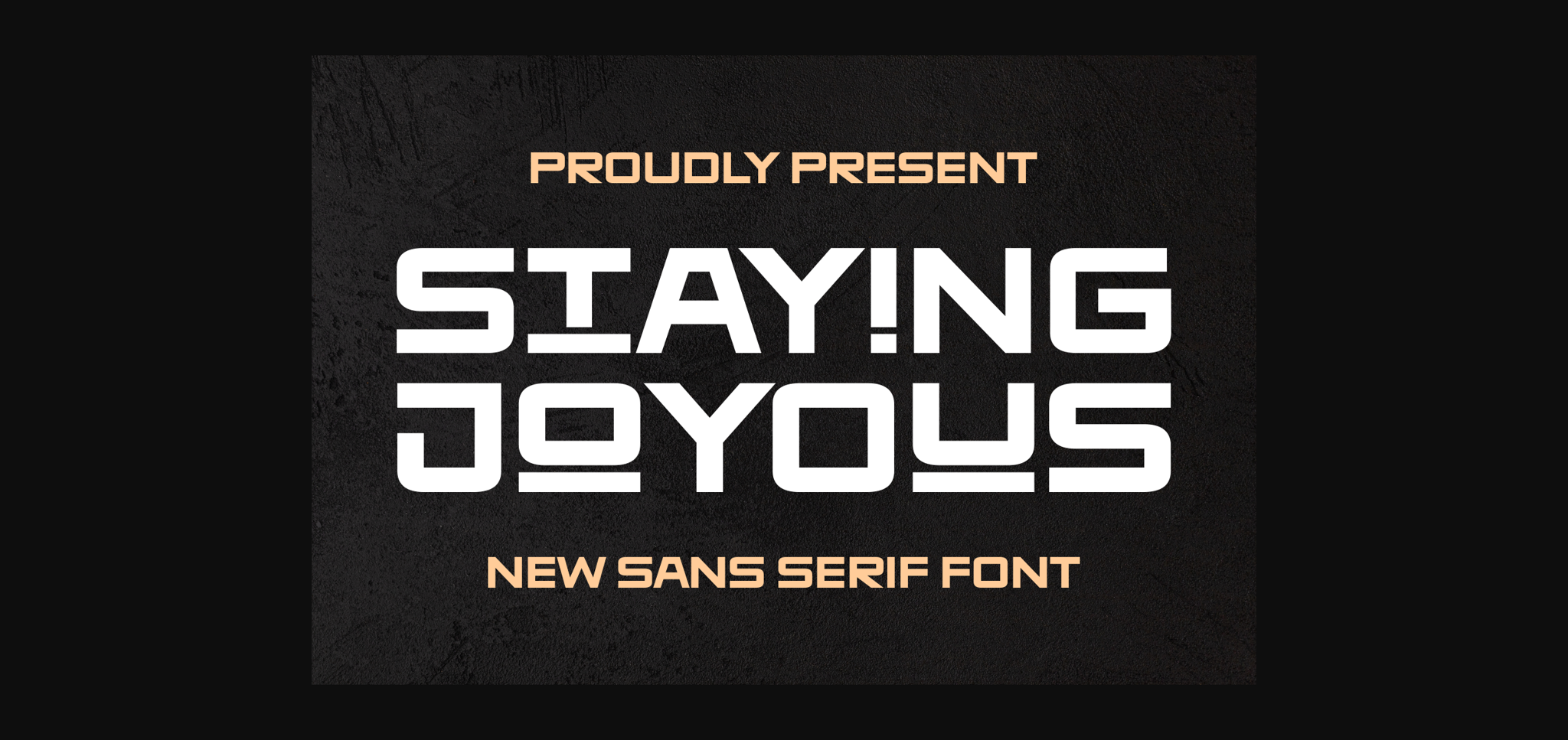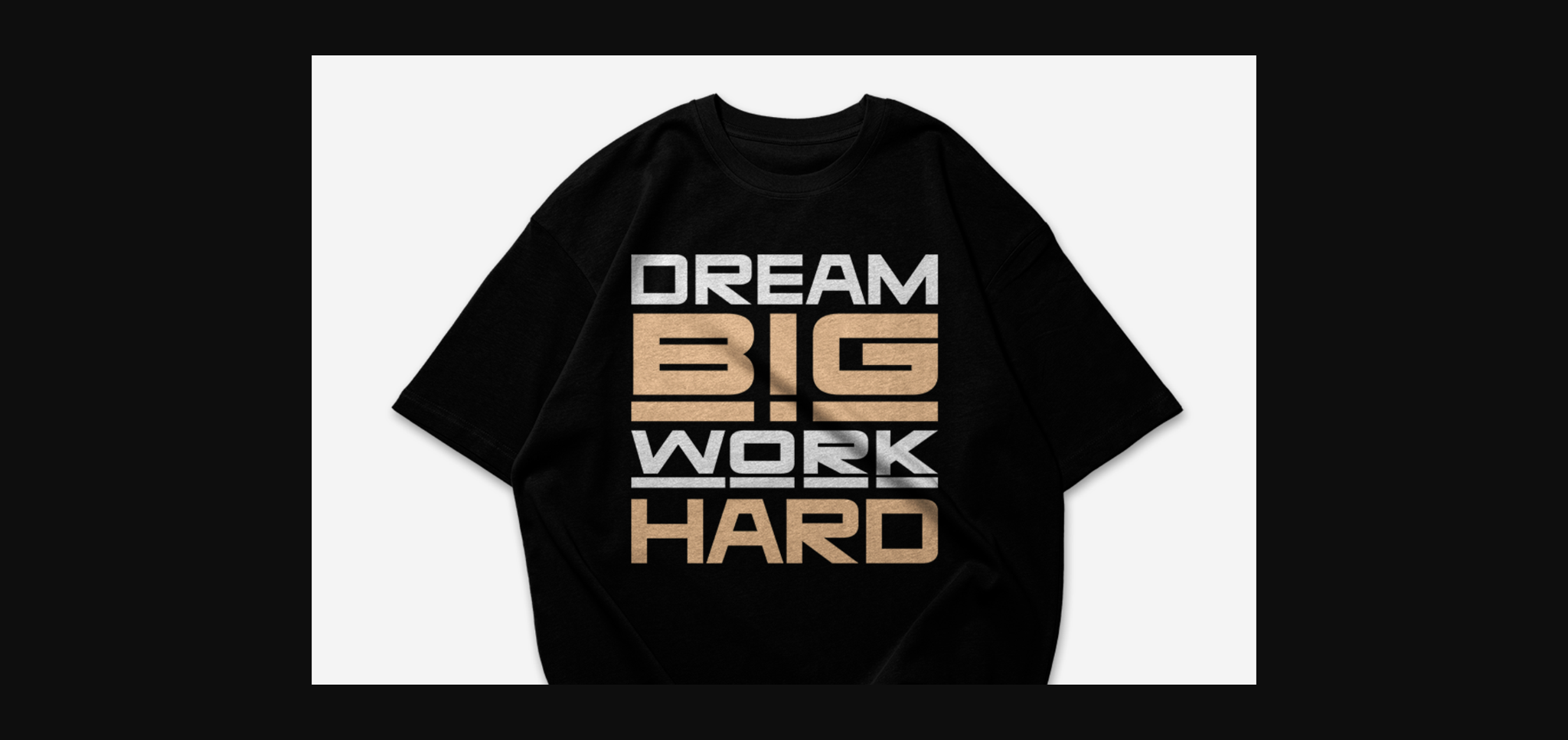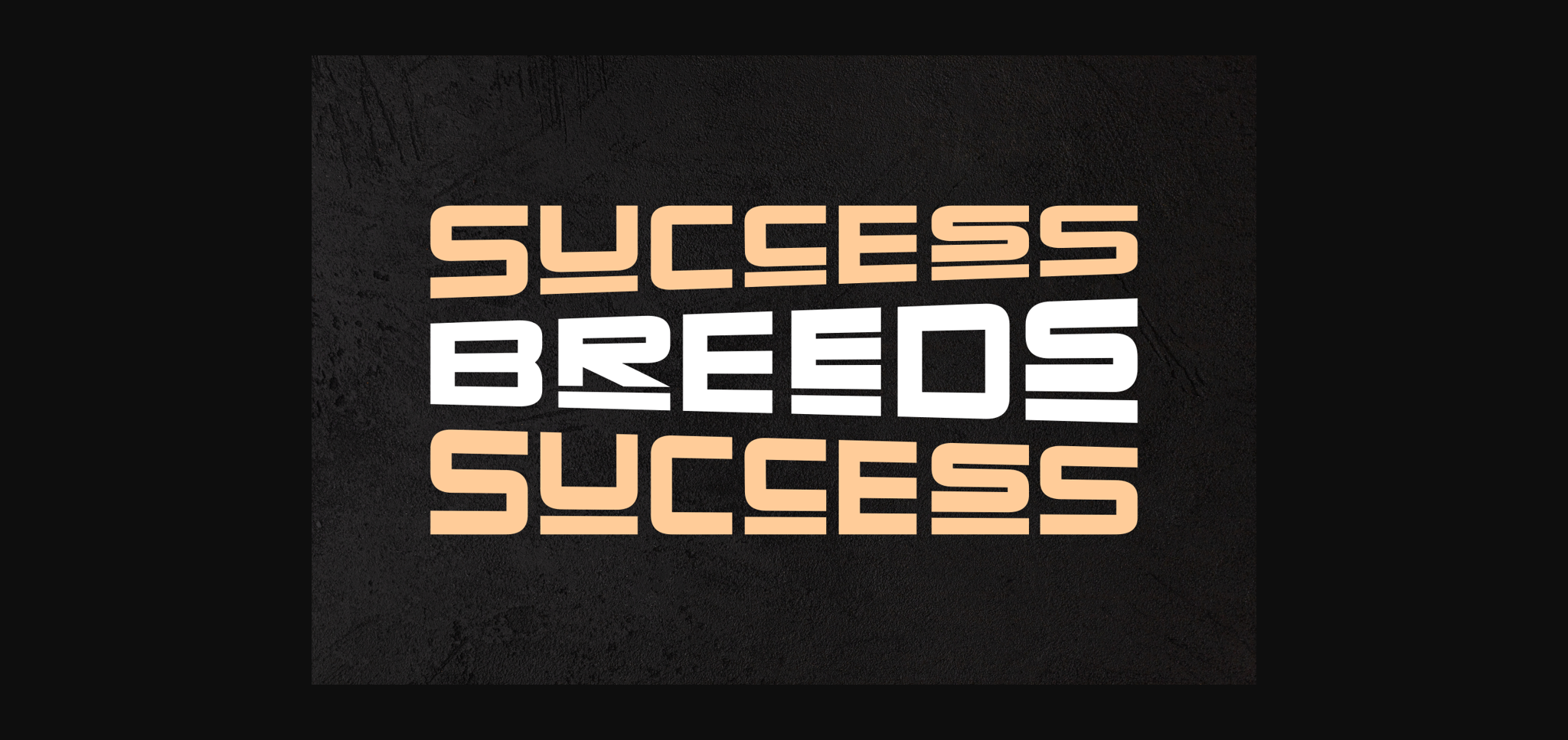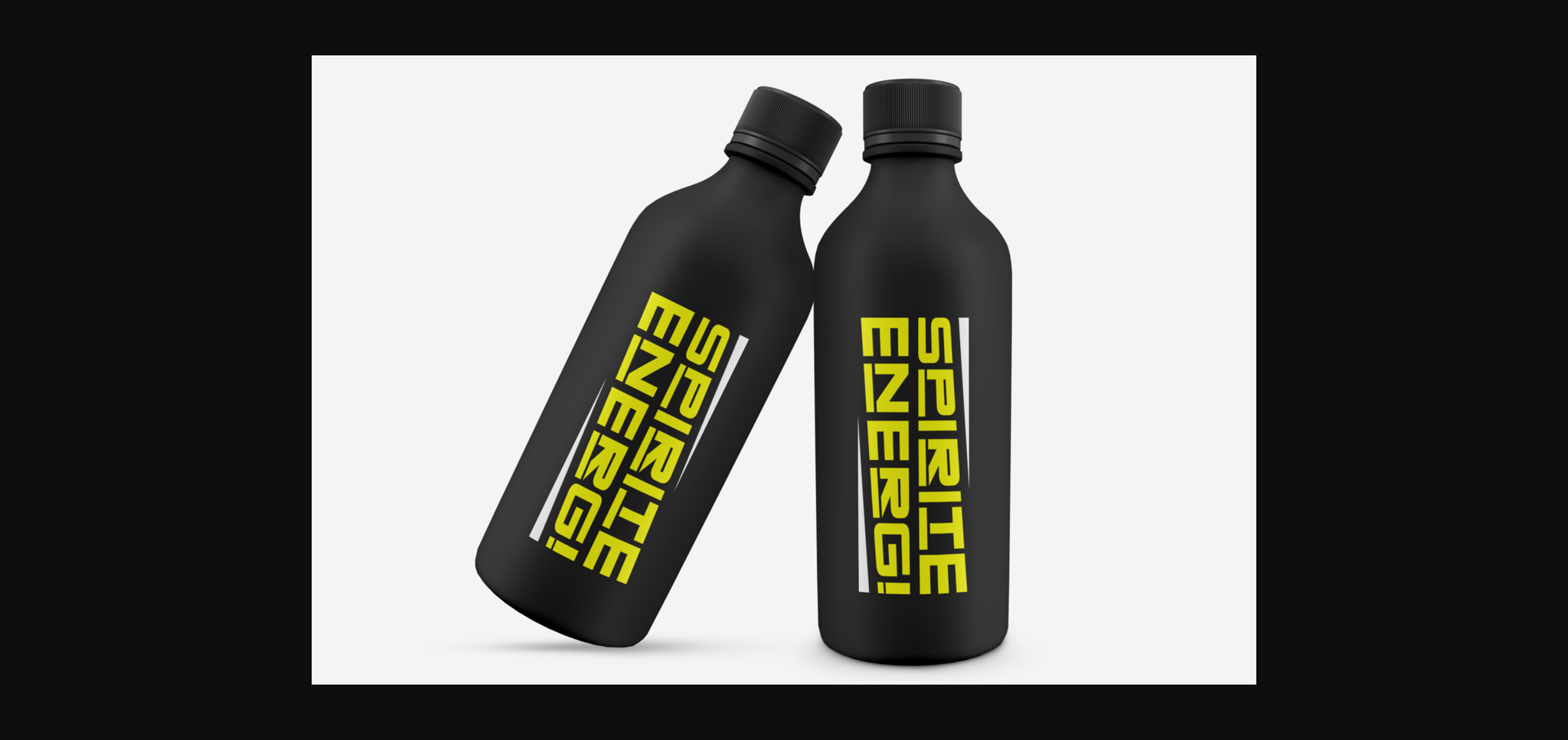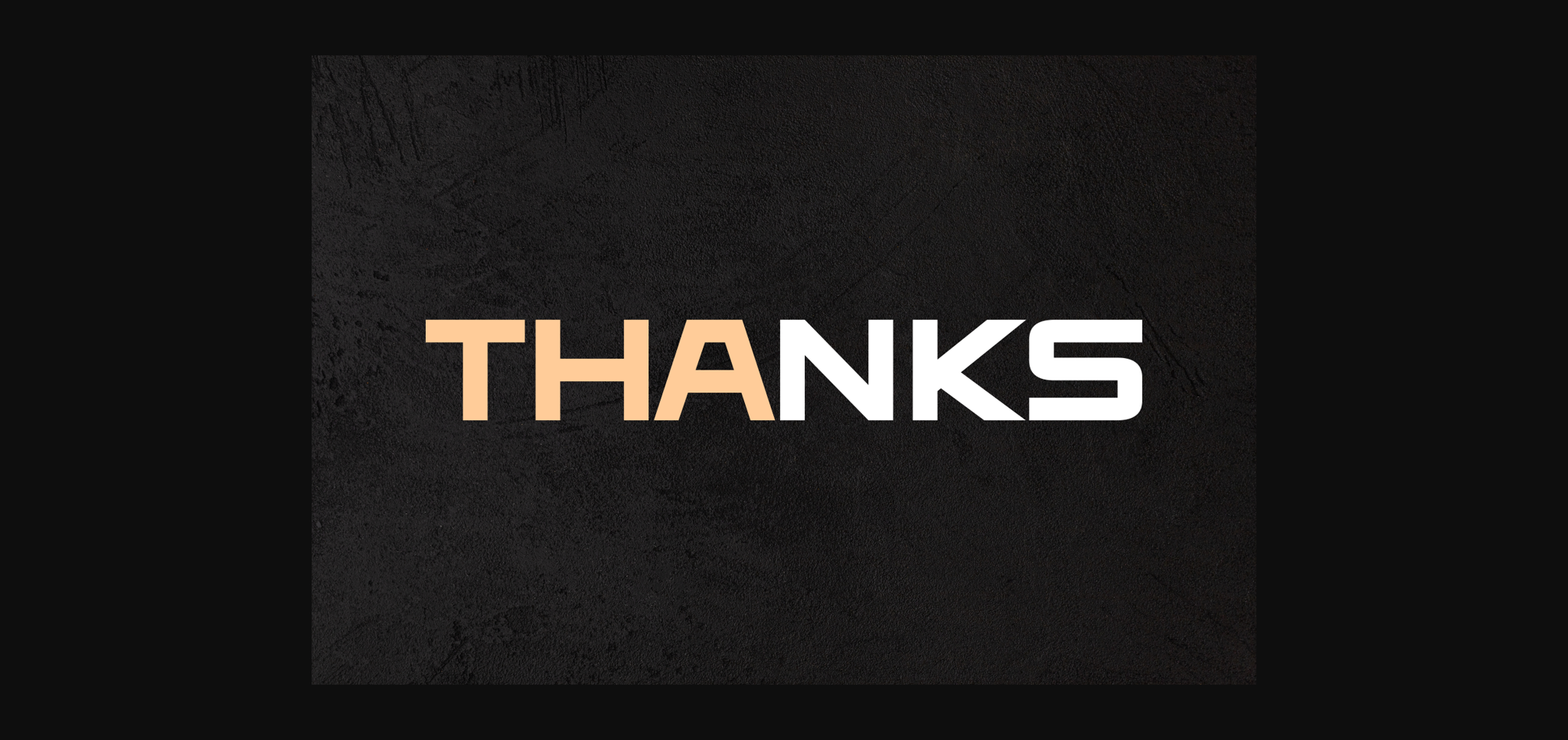
Staying Joyous Font
About Staying Joyous Font
Meet “Staying Joyous,” a fresh sans-serif font with a touch of flair. This modern typeface brings a clean and contemporary look, while certain letters feature stylish underlines, adding a subtle yet joyful twist. Staying Joyous is perfect for projects that demand a balance of professionalism and creativity. Whether you’re crafting sleek presentations or designing vibrant marketing materials, this font brings a dash of joy to your typography, making every message both chic and cheerful.